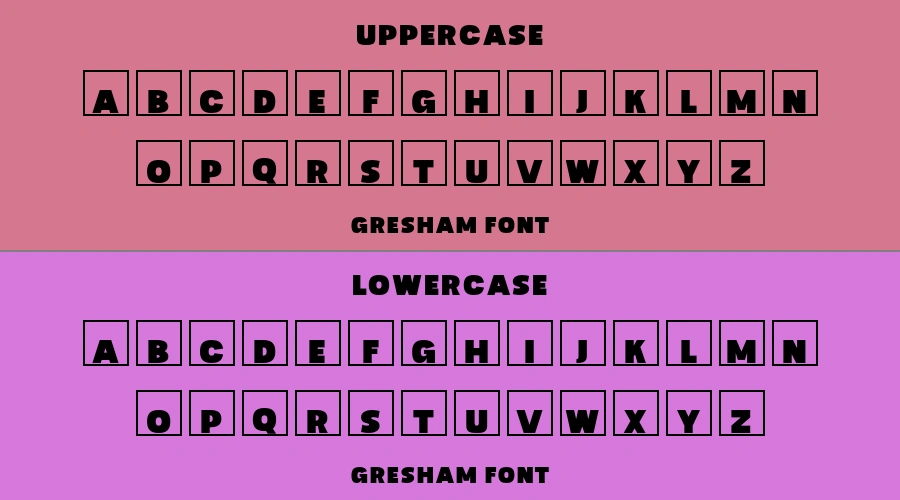
About Gresham Font
Gresham Font embodies typographic excellence through its masterful combination of geometric precision and brand presence. Created for annual reports, this typeface delivers exceptional durability and design innovation across all applications. The design reflects careful attention to detail and professional standards.
Advanced capabilities include distinctive subtle details and versatile stylistic sets, giving designers creative control. When used in campaign headers, Gresham Font exhibits remarkable data presentation. The harmonious balance between spur details and brand personality sets this typeface apart.